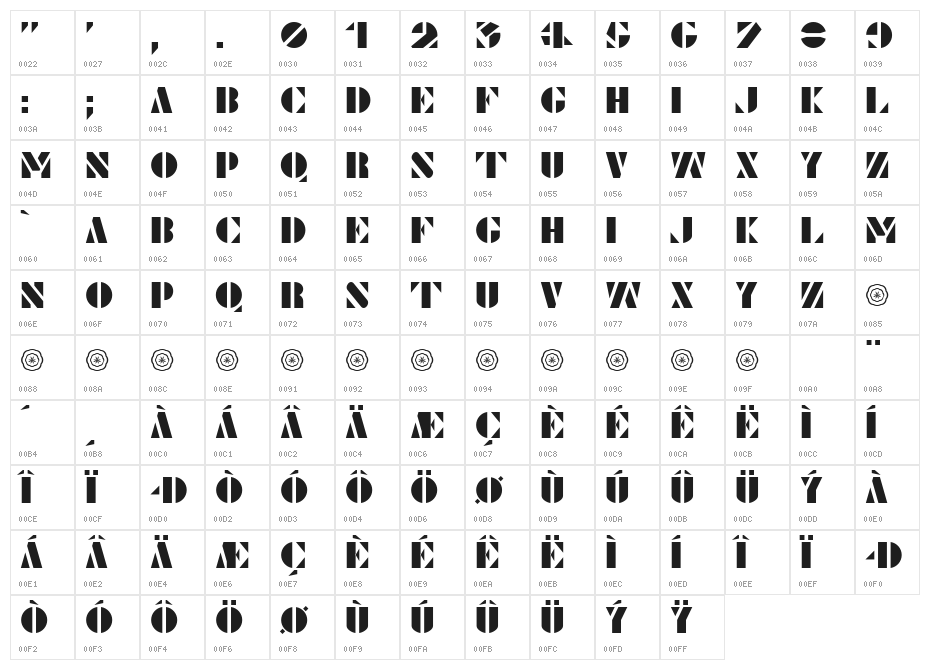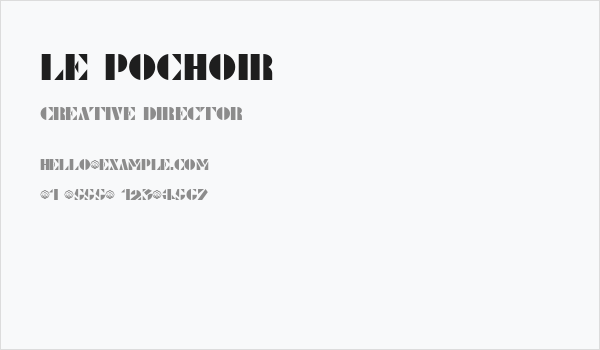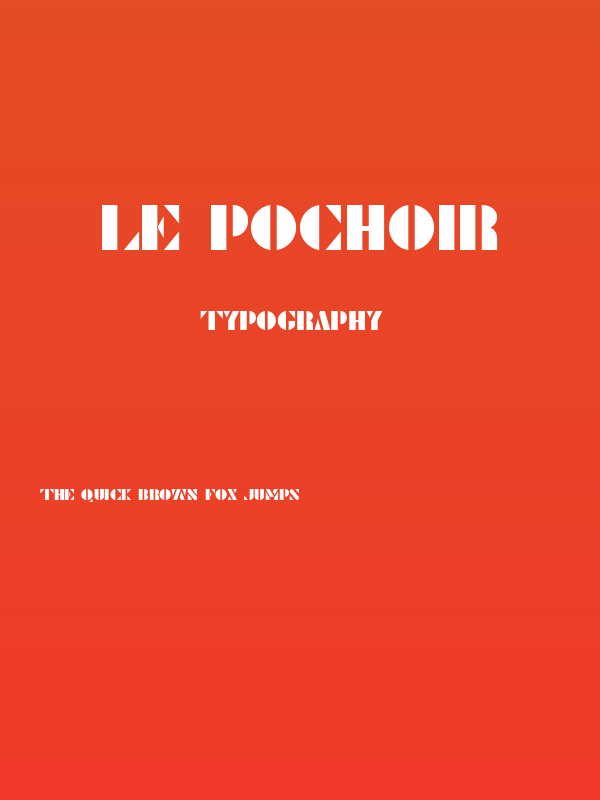
Le Pochoir Font
Le Pochoir Description
This font features a bold, geometric stencil design that is both striking and modern. Each character is composed of solid, angular shapes with distinct cutouts, creating a dynamic and industrial appearance. The uppercase and lowercase letters maintain a consistent style, emphasizing sharp angles and clean lines. The numbers and special characters follow the same design principles, ensuring uniformity across all glyphs. This font's unique style makes it ideal for projects that require a bold and impactful visual statement.
Proposed ProjectsIdeal for branding, posters, signage, and any project requiring a strong, industrial aesthetic.